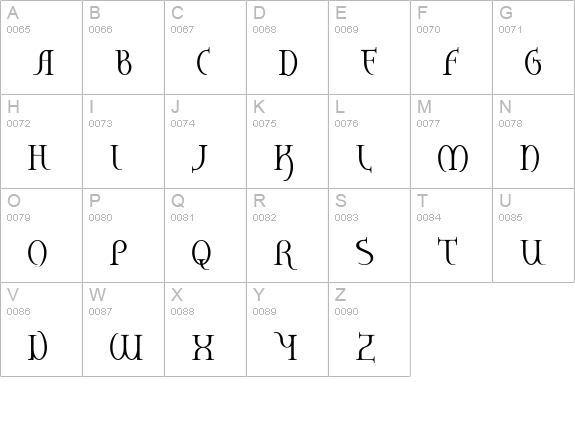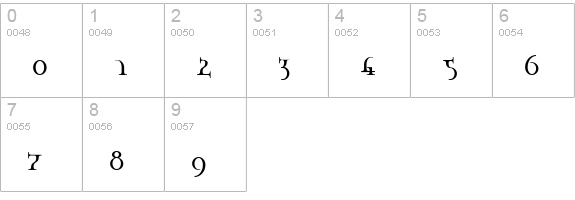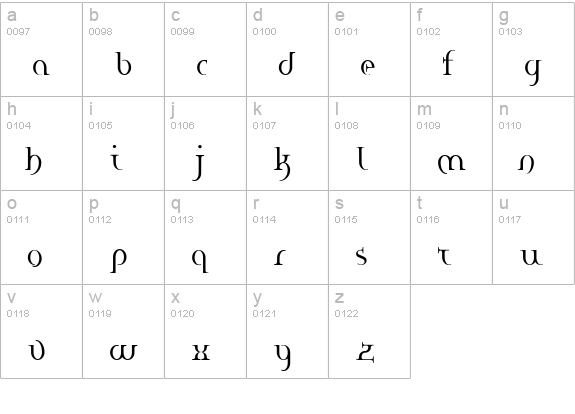
Hane RegularE Font Details
Hane RegularE font is a stunning typeface that exudes elegance and sophistication. Its clean and modern design makes it perfect for a wide range of projects, from branding and packaging to website design and advertising. This font features a harmonious balance between straight lines and curved edges, giving it a unique and eye-catching appeal. Its versatility allows it to be used for both headlines and body text, ensuring that your message is conveyed with clarity and style. Hane RegularE font is freely available to download at FontsMarket.com, making it accessible to designers and creatives of all levels. Whether you're a professional designer or a hobbyist, this font allows you to elevate your projects without any cost. With its wide range of characters and punctuation marks, Hane RegularE font offers extensive language support, making it suitable for multilingual projects. It also includes various OpenType features, such as ligatures and alternate characters, providing you with even more options to customize your designs. Whether you're working on a print project or a digital design, Hane RegularE font is sure to impress. Its timeless elegance and versatility make it a valuable asset in any designer's toolkit. Download Hane RegularE font for free at FontsMarket.com and unleash your creativity with this exceptional typeface.